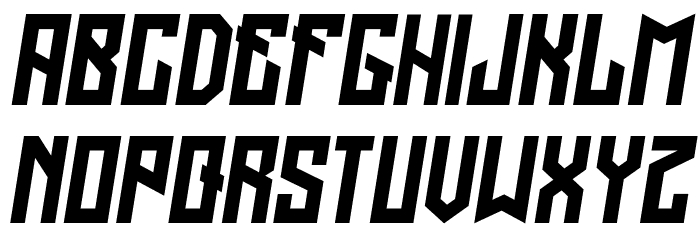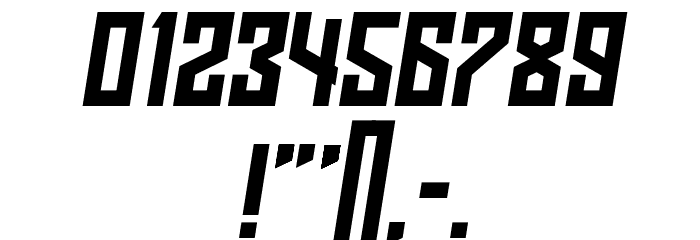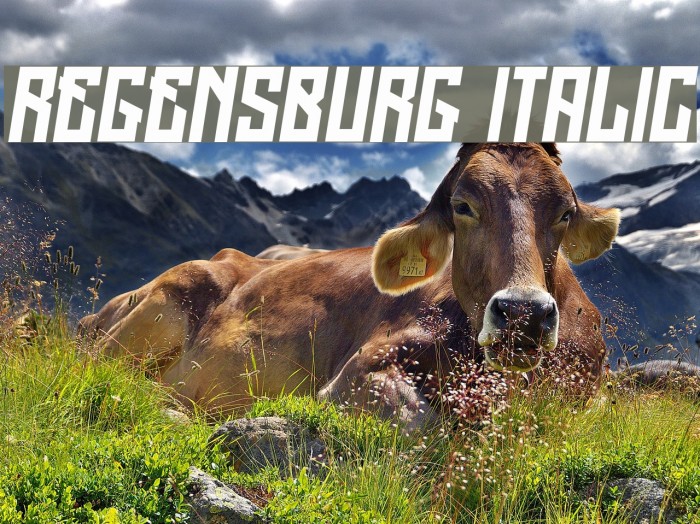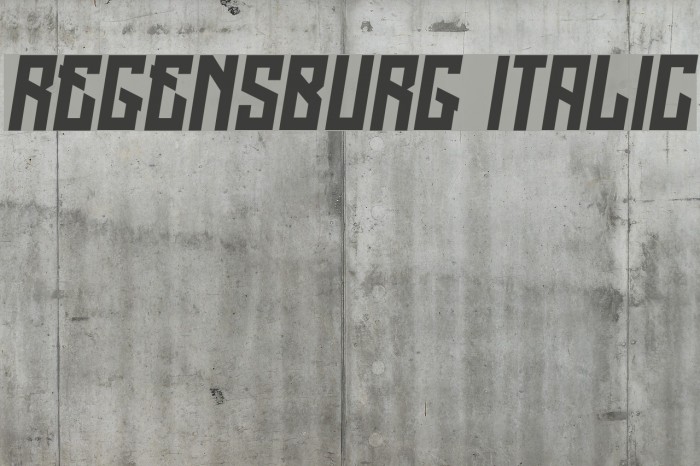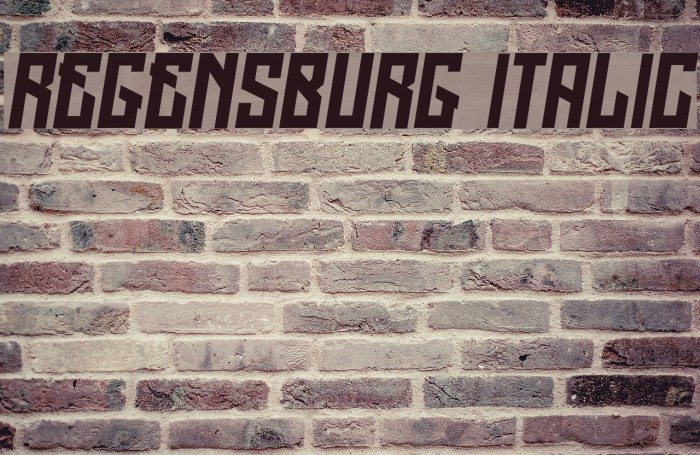
Regensburg Italic Font
This font features a bold, angular design with a distinct italic slant, giving it a dynamic and energetic appearance. The characters are sharply defined with a geometric style, creating a sense of movement and modernity. The uppercase and lowercase letters maintain a consistent style, with the uppercase being particularly striking due to their strong lines and sharp angles. The numbers follow the same design principles, ensuring uniformity across all characters. Special characters are also included, matching the bold and angular aesthetic. This font is ideal for projects that require a bold statement and a modern, edgy look.
A bold, angular italic font with a dynamic and modern style.
- Proposed Projects: Ideal for sports branding, dynamic posters, modern advertising, and edgy graphic design projects.